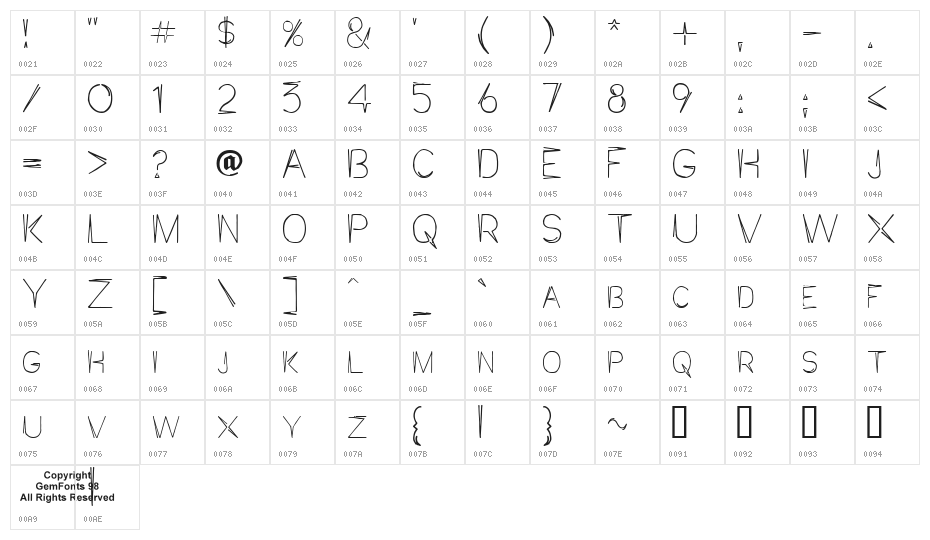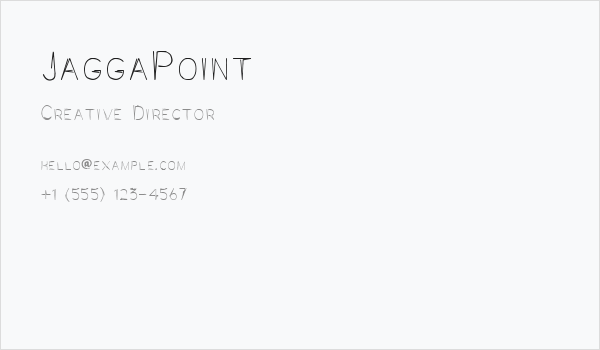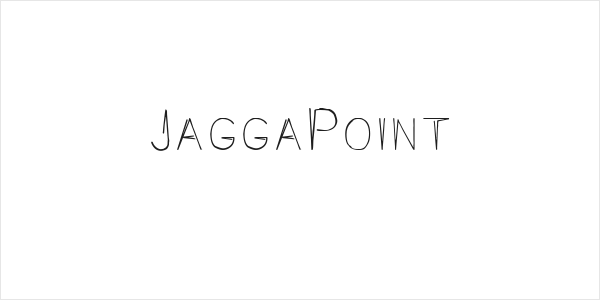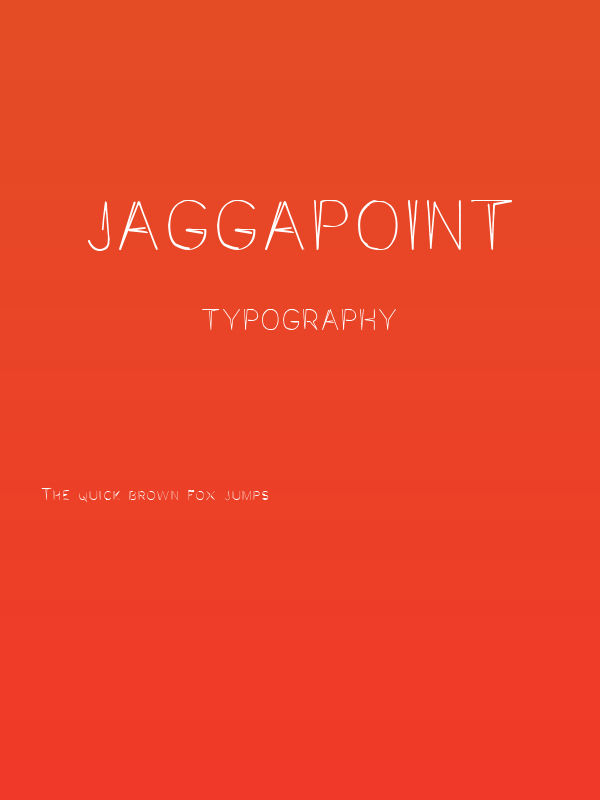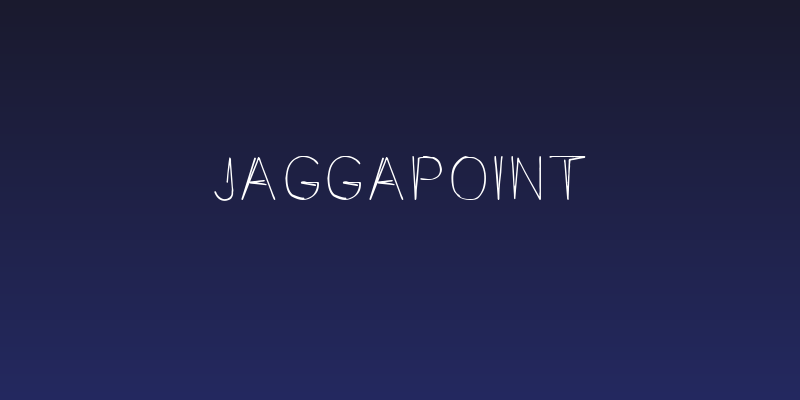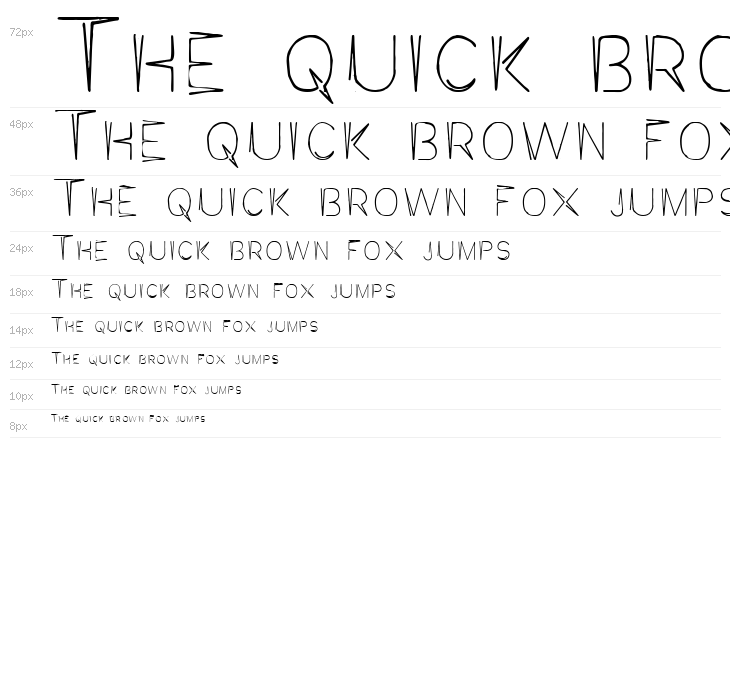
JaggaPoint Font
JaggaPoint Description
This font features a unique, hand-drawn style with irregular strokes and a playful, artistic flair. The characters exhibit a dynamic and slightly chaotic appearance, with varying line thicknesses and unexpected angles. This creates a sense of movement and energy, making it stand out as a decorative choice. The uppercase and lowercase letters maintain a consistent style, while the numerals and special characters complement the overall design. The font's quirky and whimsical nature makes it suitable for creative projects that require a touch of individuality and expression.
Overall StyleArtistic, Whimsical
Proposed ProjectsIdeal for artistic posters, creative branding, children's books, and unique invitations.